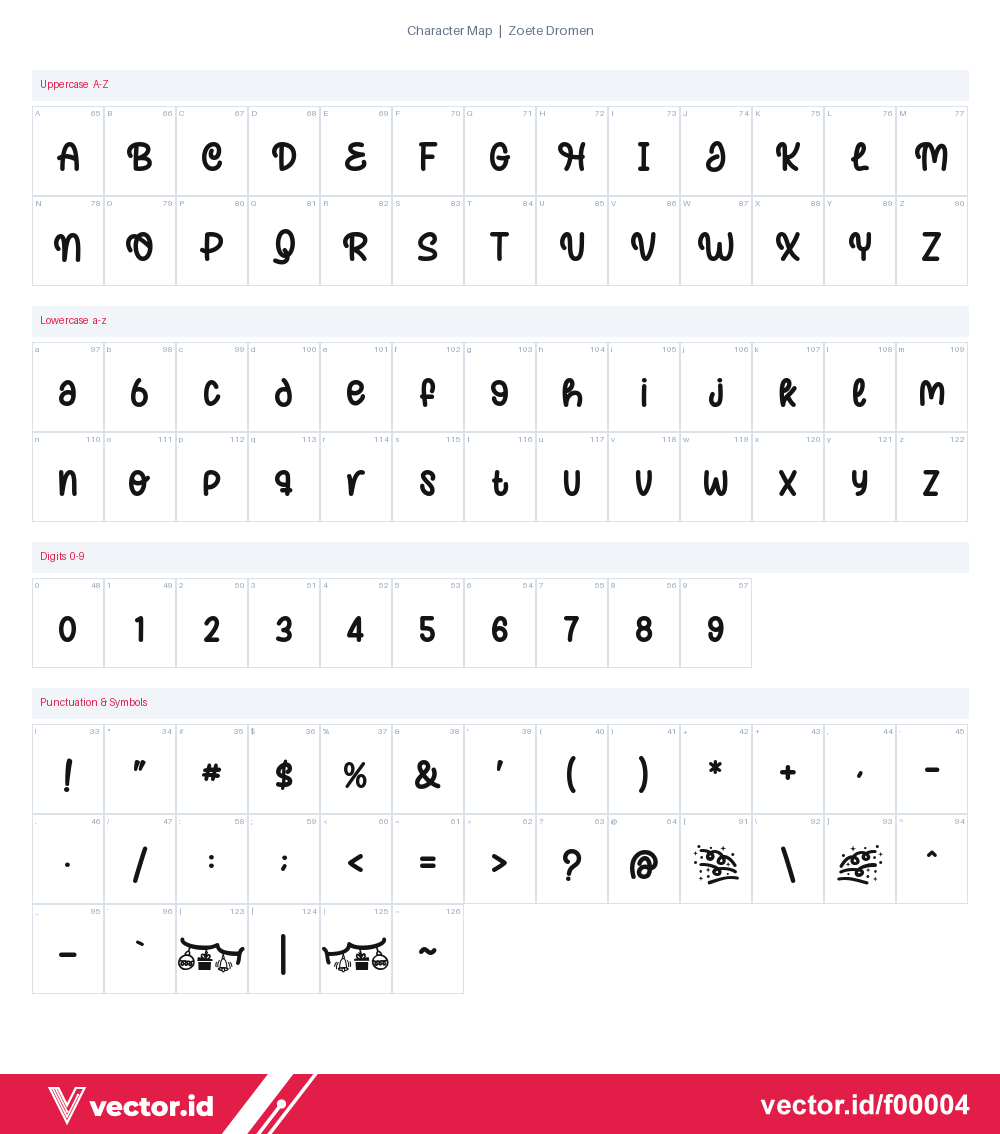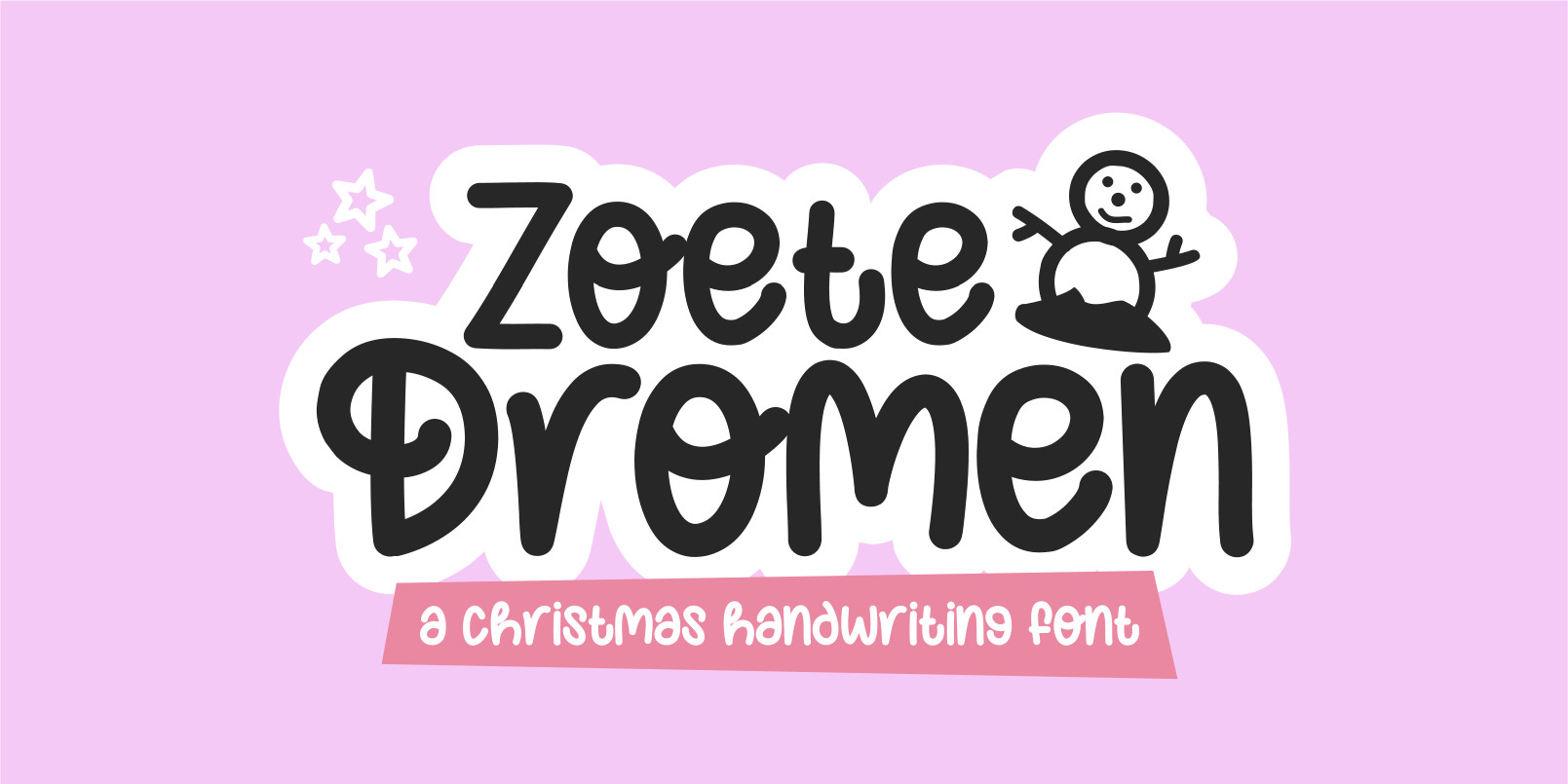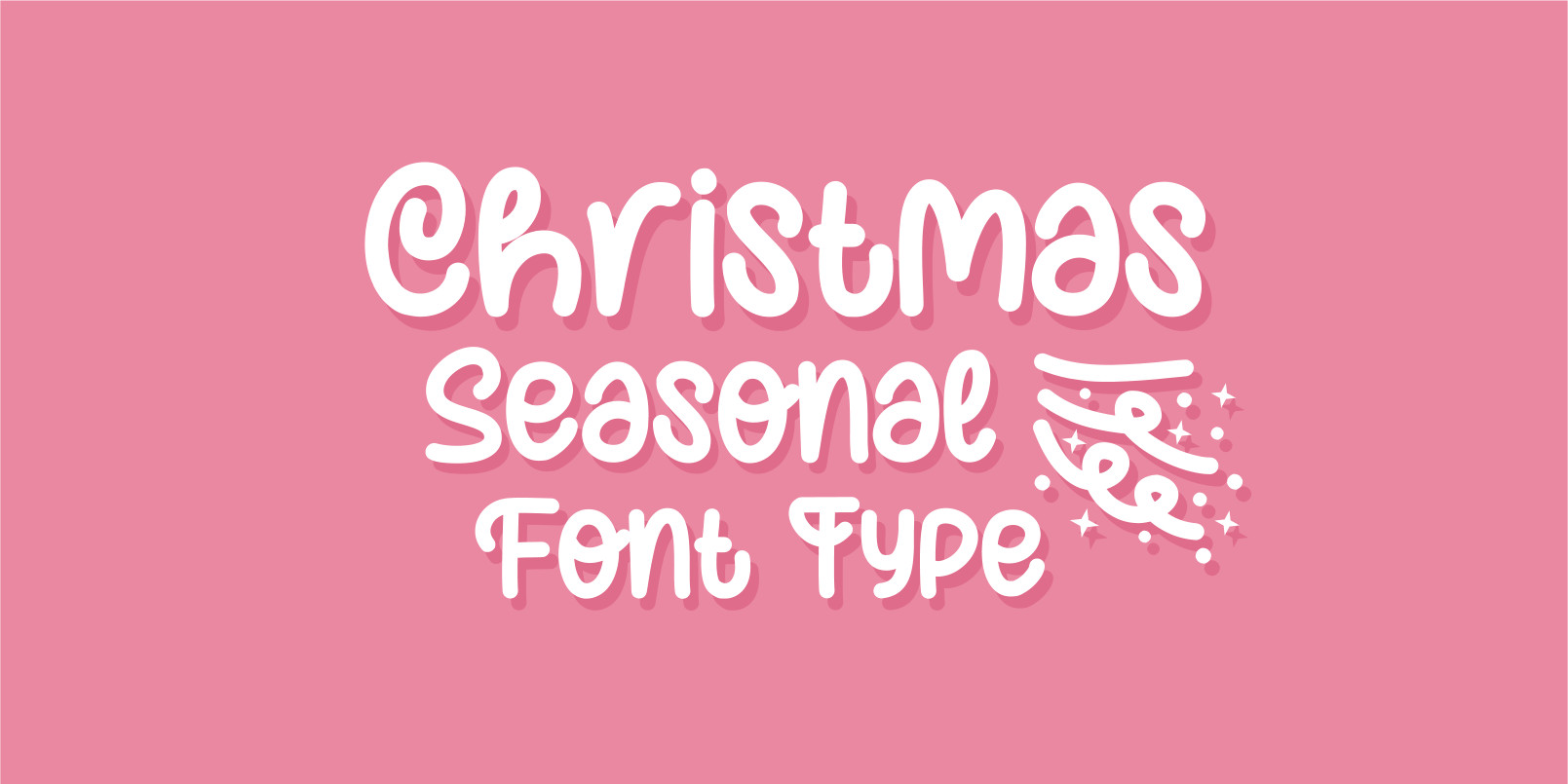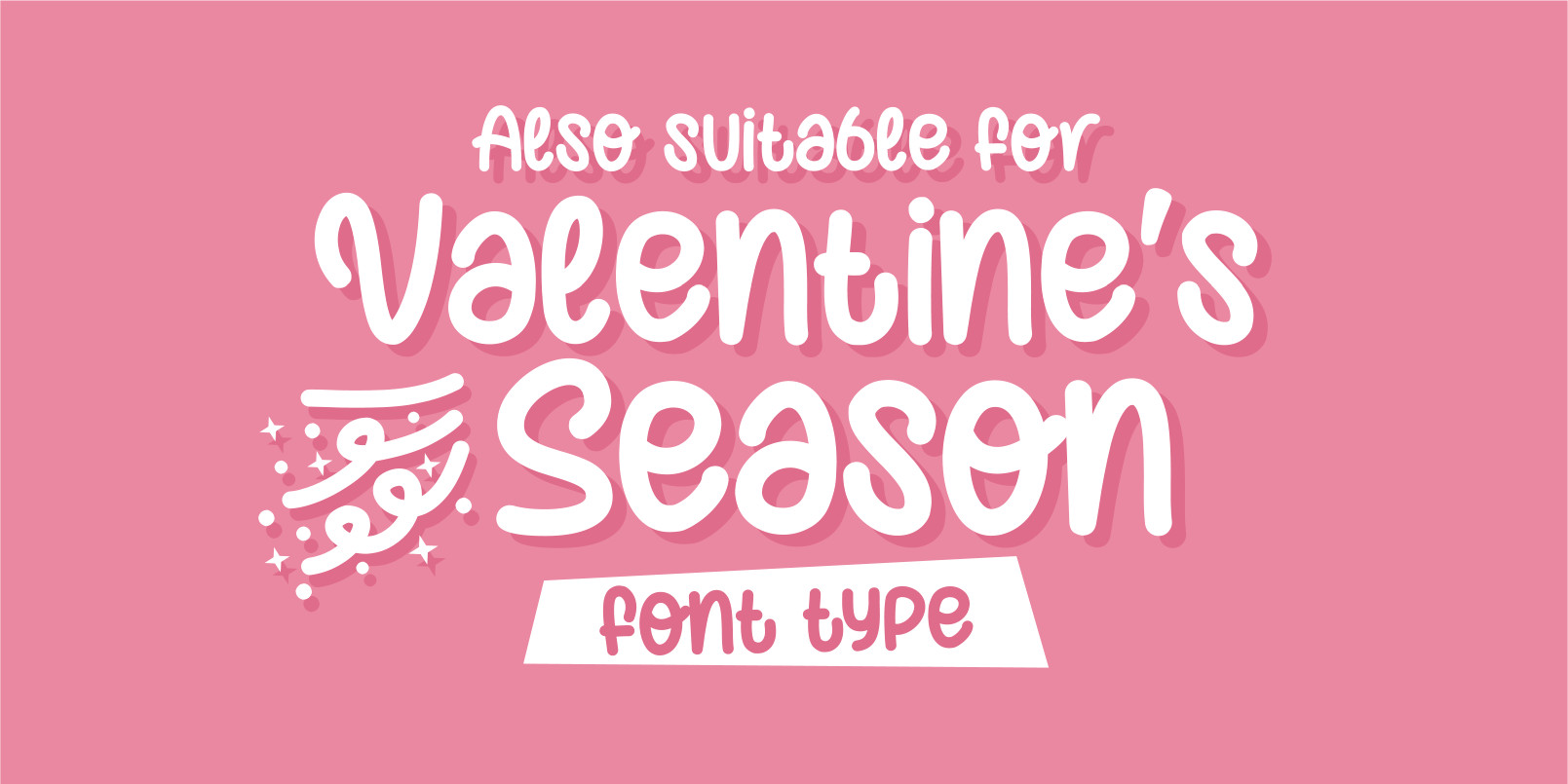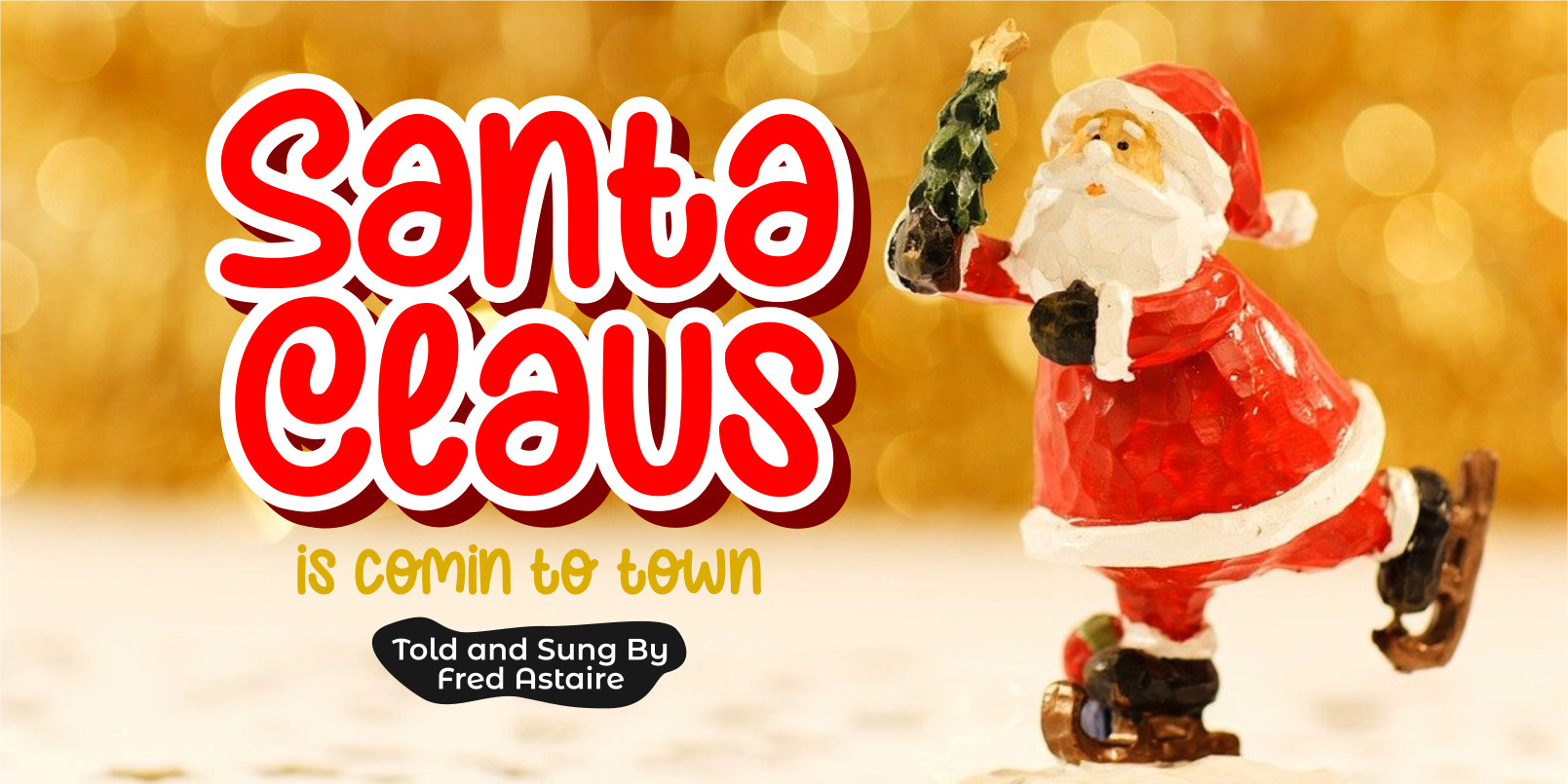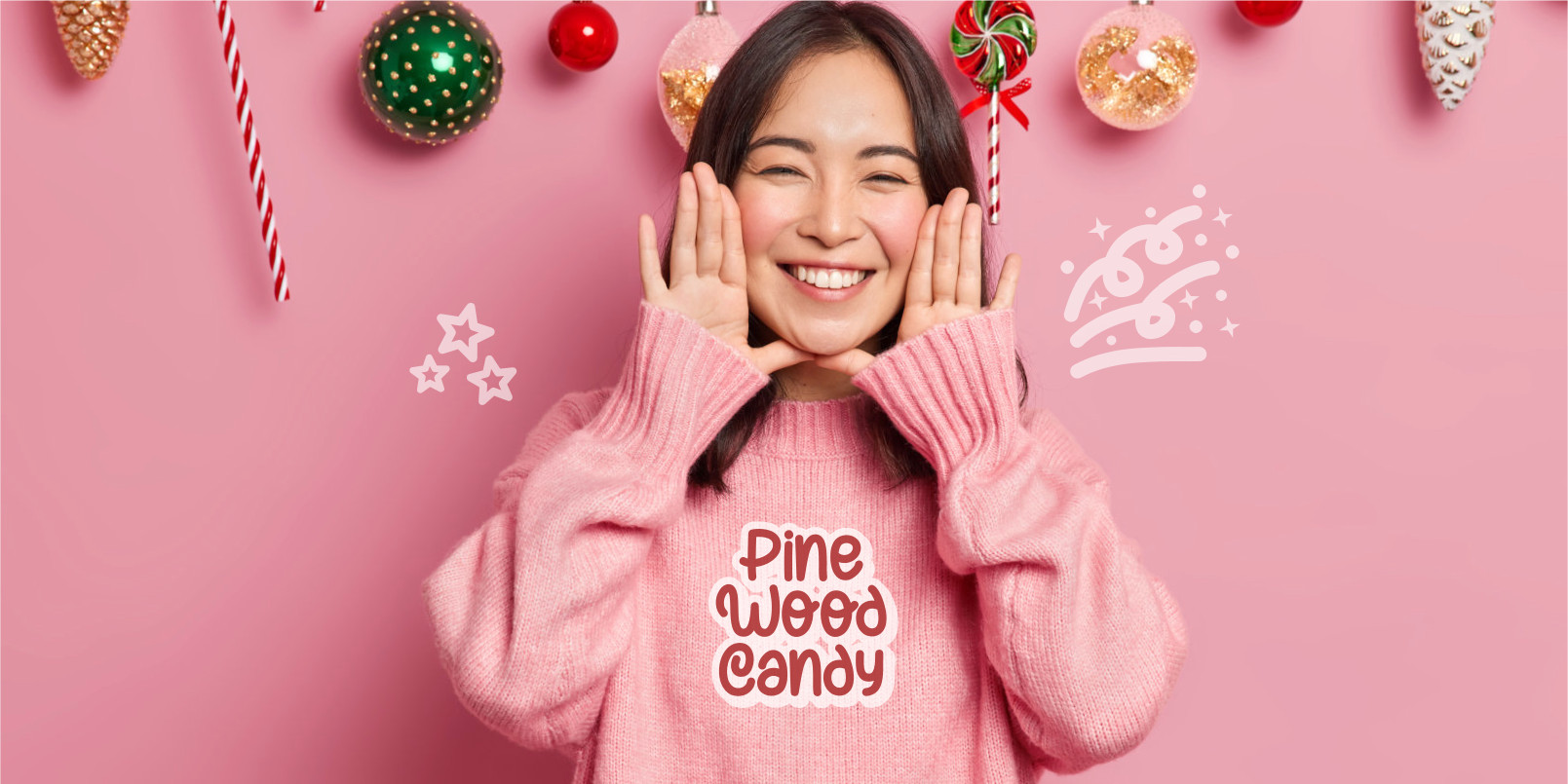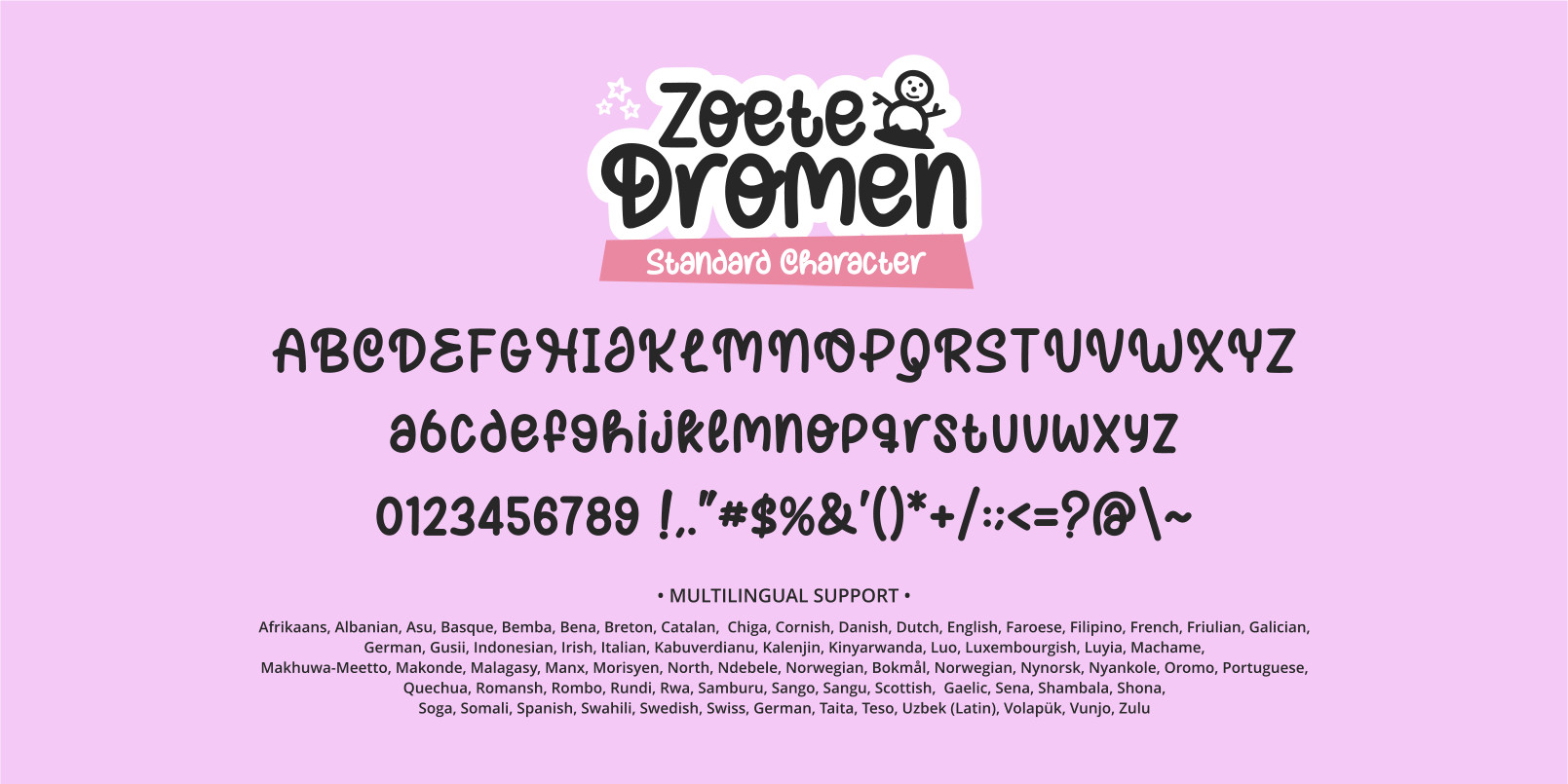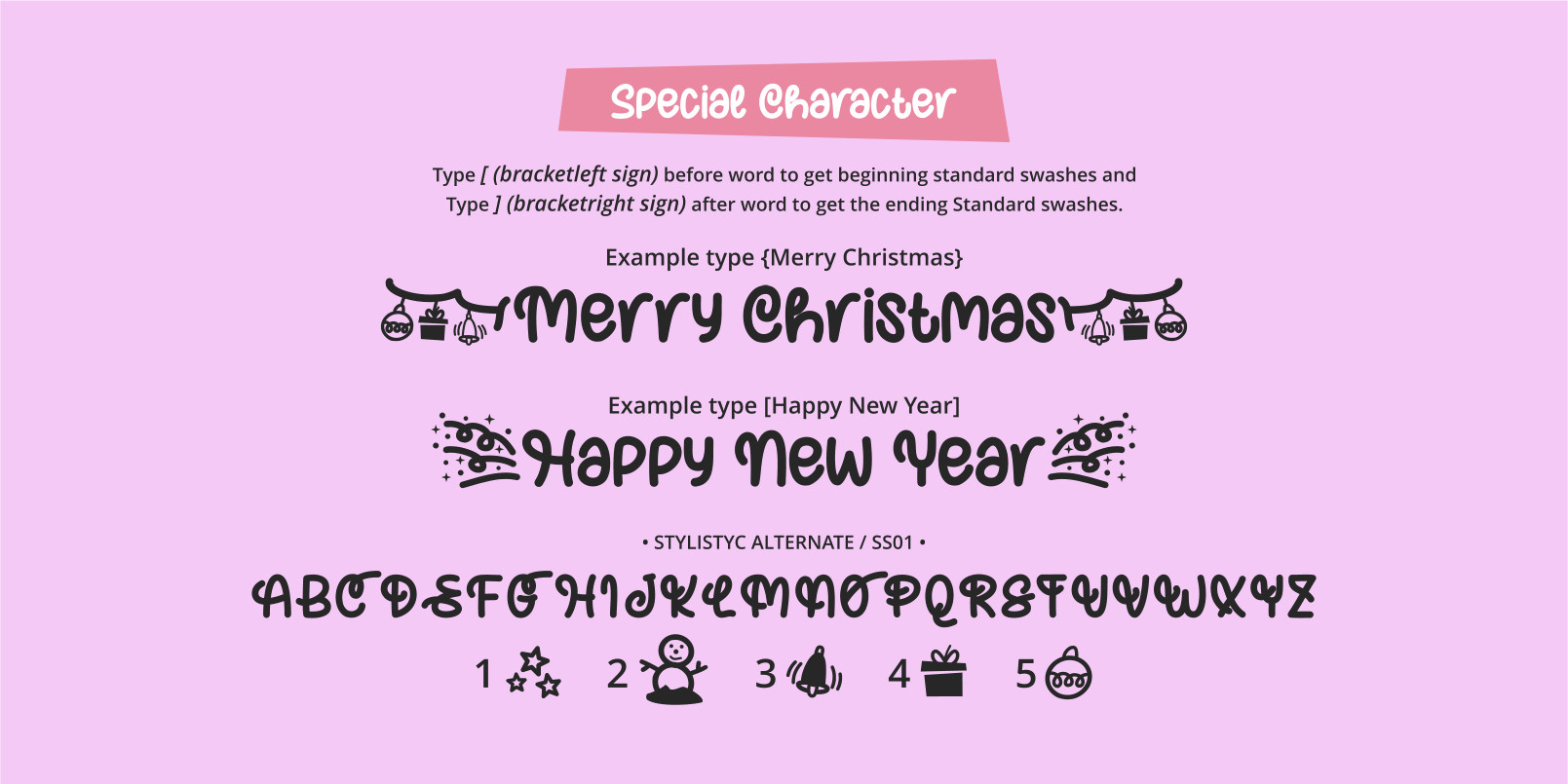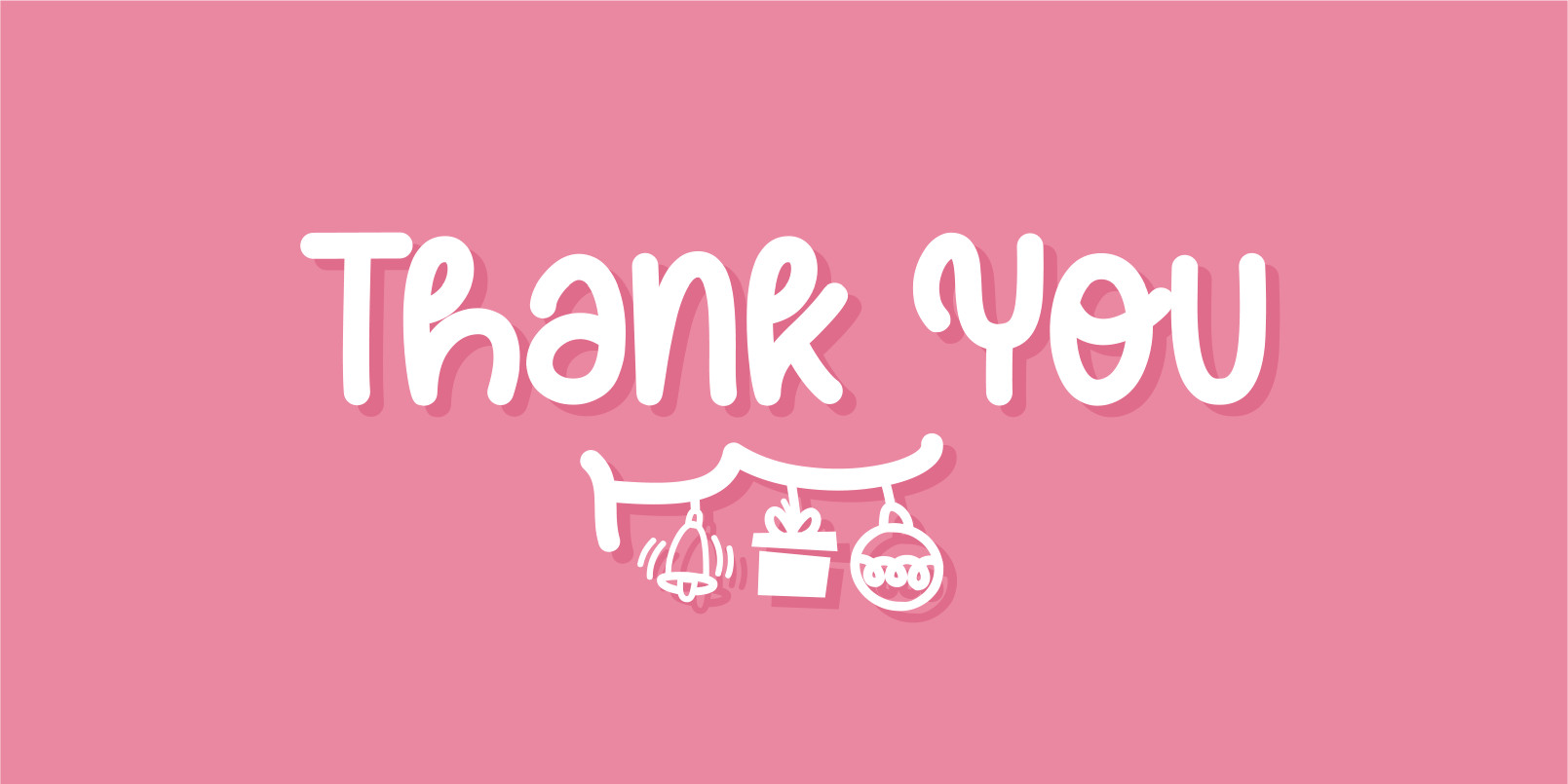
Zoete Dromen is a cute and casual display font with an incredibly friendly feel. Use it for Christmas cards, winter crafts for decor and various other creations! This font is PUA encoded which means you can access all of the glyphs and swashes with ease!
Zoete Dromen Font